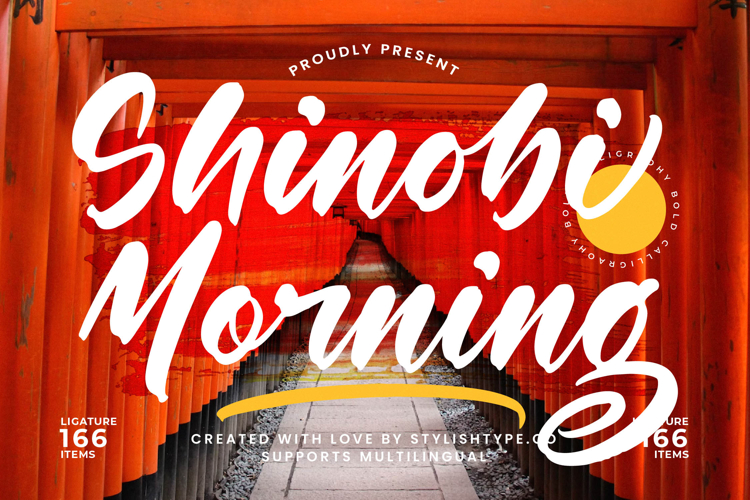
Shinobi Morning - Bold Calligraphy Font
Discover the captivating allure of handcrafted design with Font Shinobi Morning - Bold Calligraphy Font Script. This exquisite typeface masterfully blends the rich tradition of brush calligraphy with a powerful, contemporary aesthetic. Its bold, fluid strokes and authentic texture create an immediate visual impact, lending an air of sophisticated artistry to any project demanding a strong presence.
Elevate your design projects with unparalleled authenticity and expressive character. Font Shinobi Morning - Bold Calligraphy Font Script boasts an impressive collection of 166 ligatures, ensuring seamless connections and truly custom-look typography every time. This robust feature set guarantees maximum flexibility for designers seeking to craft unique and memorable visual narratives.
Transform your vision into a remarkable visual statement across diverse platforms. Font Shinobi Morning - Bold Calligraphy Font Script is perfect for luxury branding, distinctive packaging, editorial design, event invitations, and premium product labels. With its extensive multilingual support, Font Shinobi Morning - Bold Calligraphy Font Script adapts seamlessly across global markets, making it incredibly versatile for international projects.